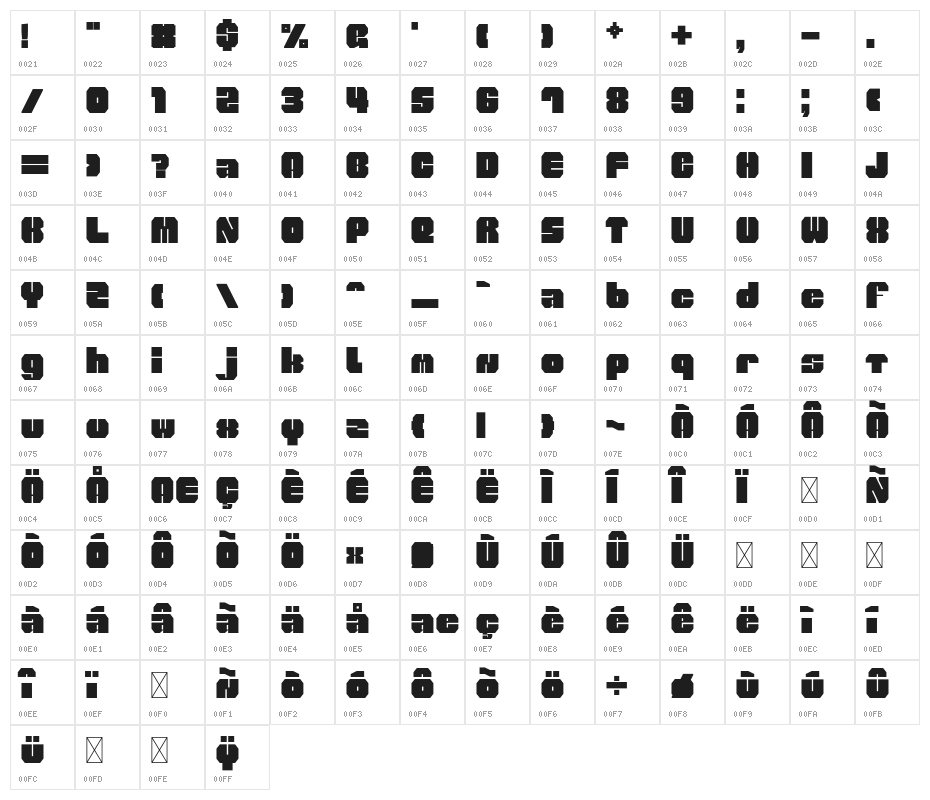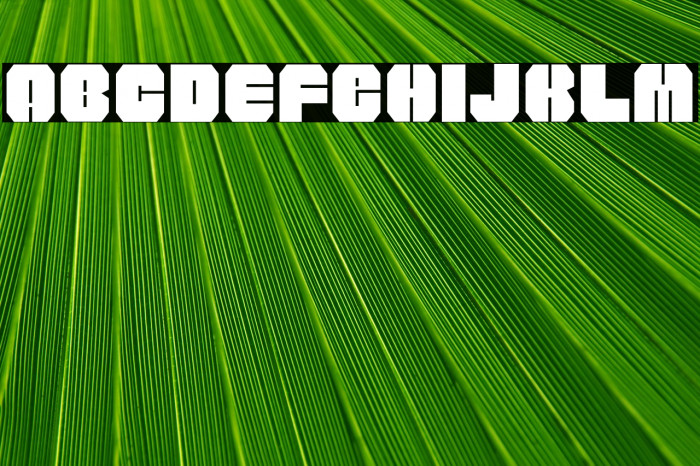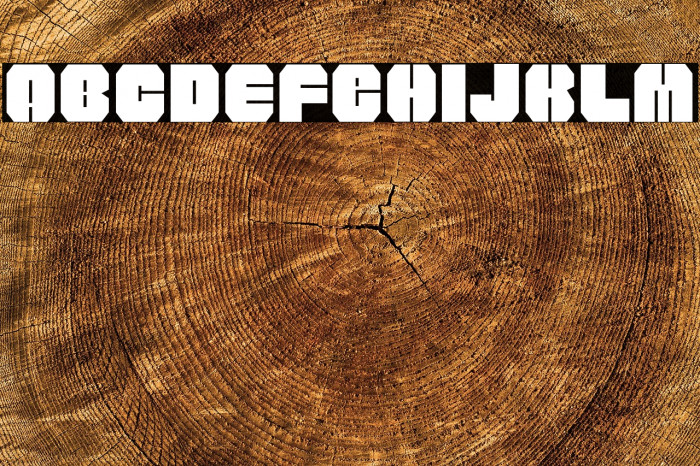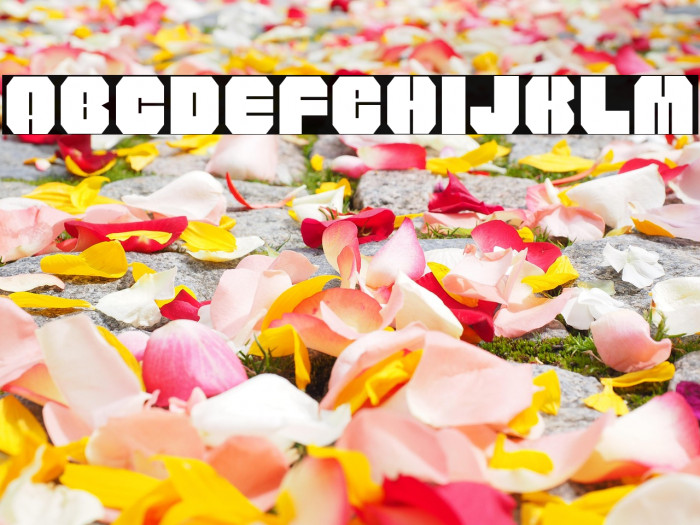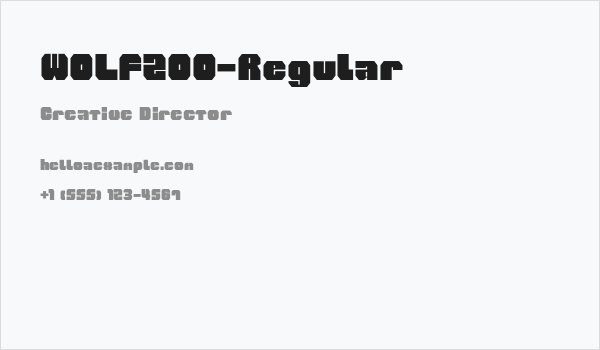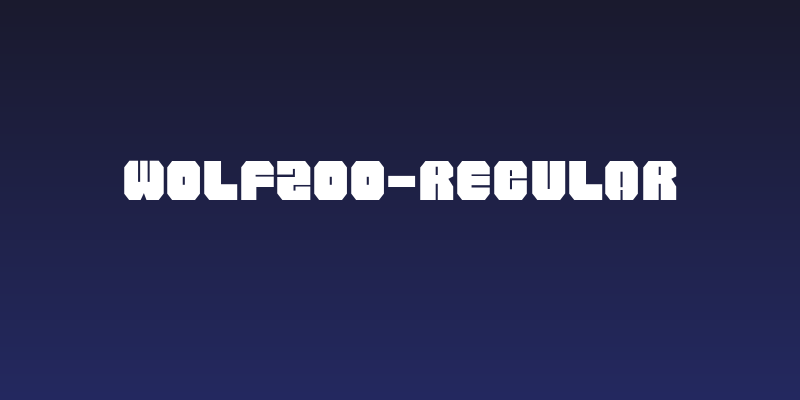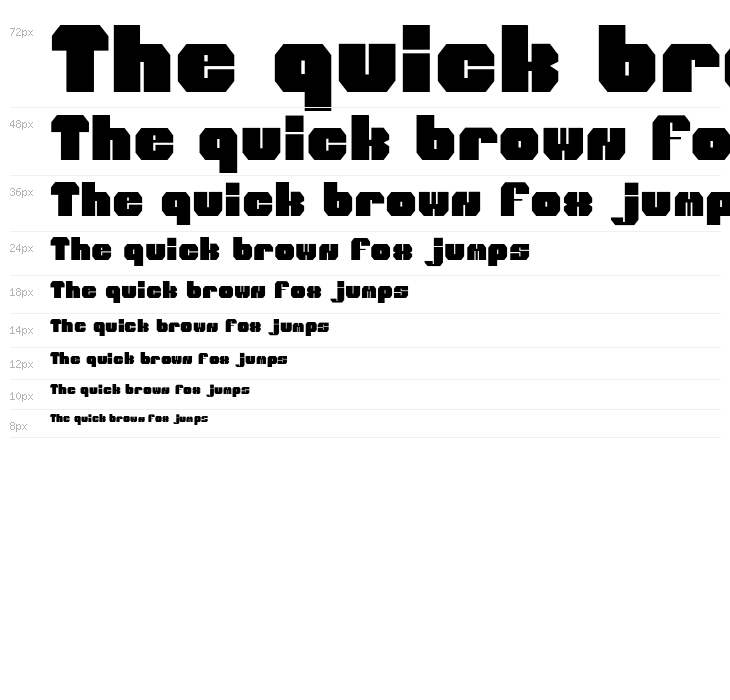
WOLF200-Regular Font
WOLF200-Regular Description
This font features a bold and geometric design with strong, angular lines and a blocky appearance. Each character is crafted with a consistent thickness, creating a uniform and cohesive look. The uppercase and lowercase letters maintain a similar width, giving the font a monospaced feel, though it is not strictly monospaced. The numbers and special characters follow the same design principles, ensuring a harmonious overall style. The font's distinct and robust appearance makes it ideal for attention-grabbing designs.
| Proposed Projects | Ideal for posters, logos, headlines, and any project requiring a strong visual impact. |